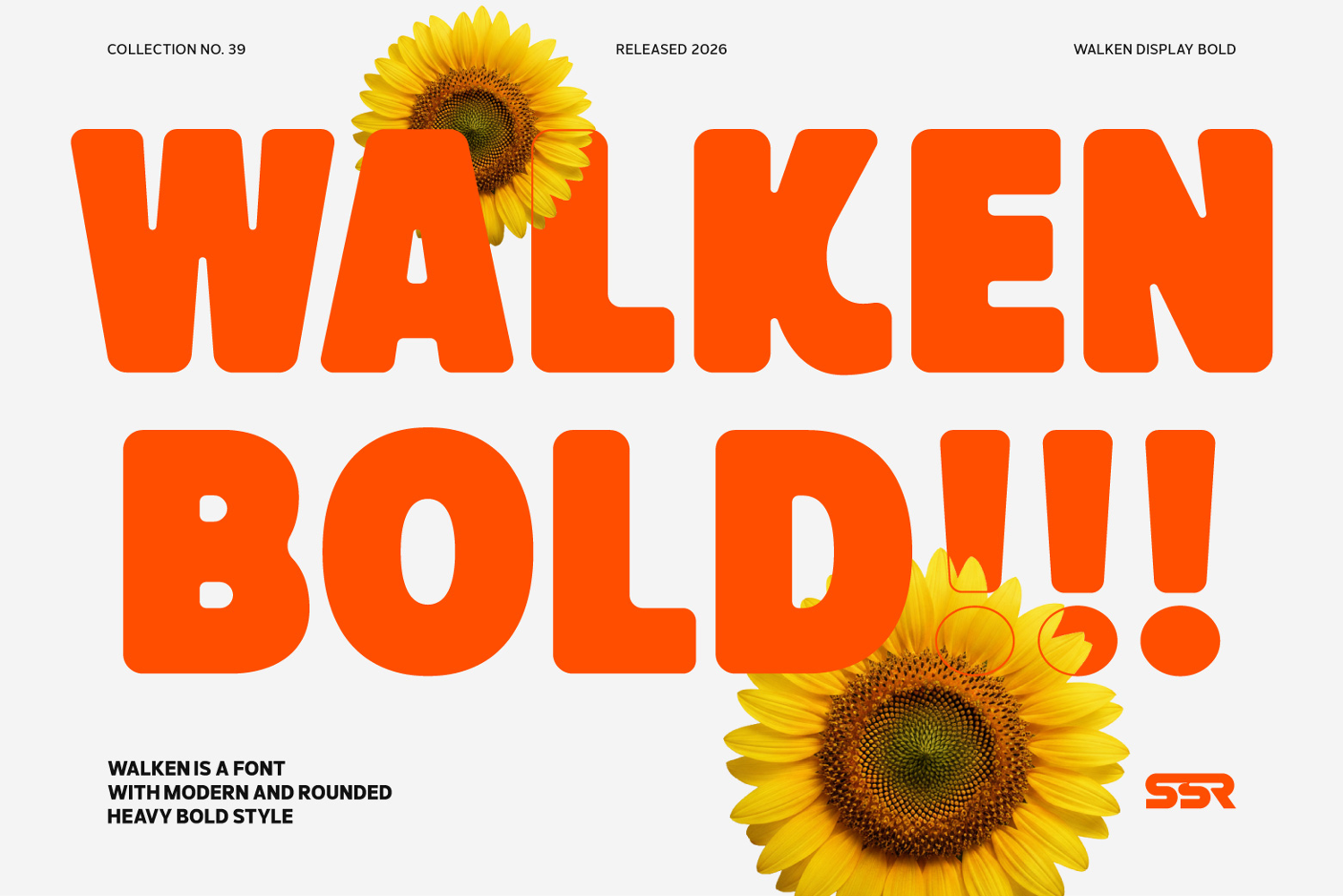
SS Walken - Modern Bold Font
Walken is a Modern Rounded Bold Logo Sans Font designed to bring energy and fun to any project. This typeface is bold and inked, friendly rounded edges that give it a warm, playful personality. It perfectly embodies a groovy style ideal for capturing attention, such as high-impact headlines, memorable logo designs, it is especially well-suited for branding and packaging across the food, kids, cafe, bakery markets and any projects that require a touch of engaging, approachable and modern sans serif. Walken delivers the perfect blend of modern simplicity and visual delight.